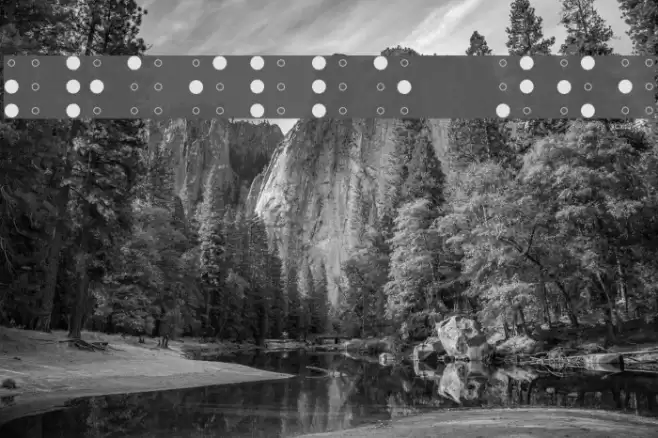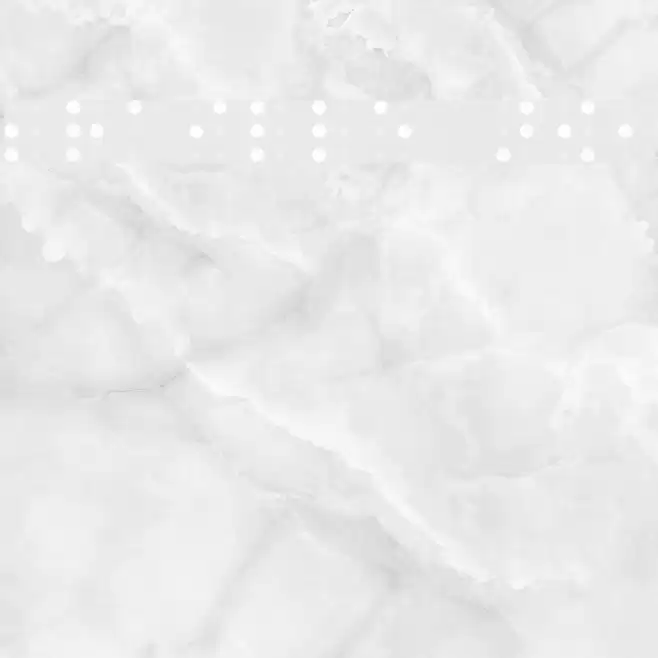
Braille AOE Font
Braille AOE Description
This image represents a Braille font, which is a tactile writing system used by people who are visually impaired. Each character is made up of a combination of raised dots arranged in a 2x3 grid. The font is designed to be read by touch, with each letter, number, or punctuation mark represented by a unique pattern of dots. The spacing between the dots and the characters is consistent, allowing for easy reading by touch. This system is essential for accessibility, enabling visually impaired individuals to read and write effectively.
A tactile Braille font for visually impaired readers from Dingbats fonts.
- Proposed Projects: Ideal for creating accessible materials, educational tools for the visually impaired, and tactile signage.
- Overall Style: Functional
- Use Case: Accessibility, Educational materials, Signage